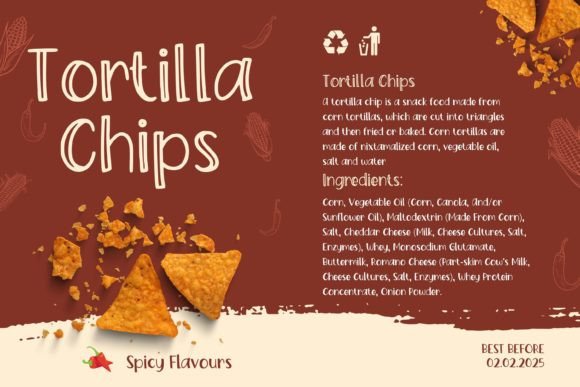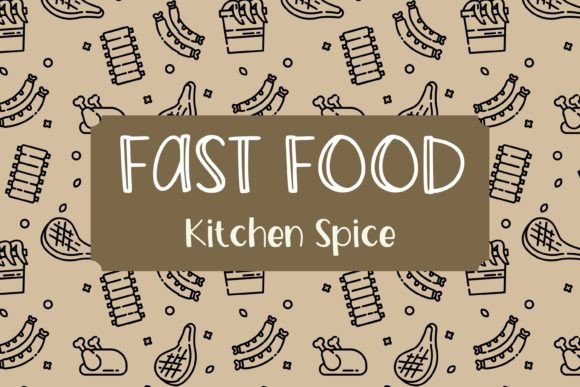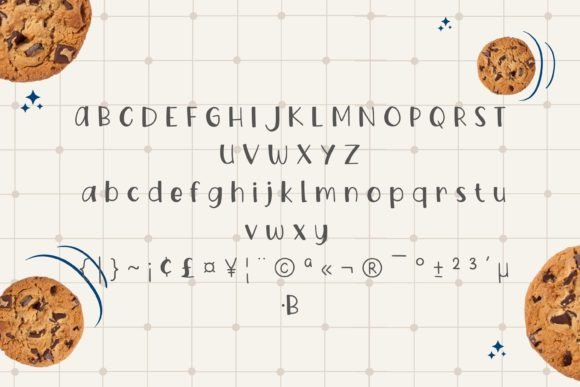
A Deliciously Friendly Font Duo for Your Next Creative Project
Have you ever found yourself stuck in a creative rut, staring at a blank canvas or screen, trying to come up with the perfect font to match your project’s vibe? We’ve all been there. But what if I told you there’s a font that’s sure to satisfy your design cravings and leave you feeling inspired?
Meet the Hungry Thirsty Duo Font, a charming handwritten font duo that exudes friendliness and approachability. Whether you’re crafting, designing, presenting, or creating greeting cards, this font is the perfect companion to bring your ideas to life. With its relaxed and playful feel, Hungry Thirsty Duo Font has the potential to become your go-to font for any occasion, and its versatility makes it a valuable addition to any designer’s toolkit.
Hungry Thirsty Duo Font Key Features
- Unique Characteristics: The Hungry Thirsty Duo Font features a unique, hand-drawn design with a mix of modern and vintage elements, making it perfect for creative projects and designs that require a personal touch.
Hungry Thirsty Duo Font Review
Overall, I think the Hungry Thirsty Duo Font is a solid addition to any designer’s toolkit. Here are a few things that work well: ✨
- Unique and playful style that’s perfect for creating attention-grabbing headlines or titles.
- Well-balanced font that works well in both digital and print applications.
- A wide range of font sizes and styles to choose from, making it easy to customize to suit your needs.
- The font may not be suitable for large blocks of text, as the unique style can become overwhelming.
- The font family is relatively small, so you may not have as many font styles to choose from as you would with a more comprehensive font family.
Overall, I think the Hungry Thirsty Duo Font is a great choice for designers looking to add some personality to their projects. While it may have some limitations, the unique style and wide range of customization options make it a great addition to any designer’s toolkit.
To get the most out of the Hungry Thirsty Duo Font, use it in creative and unique ways, such as:
1. Creating eye-catching headlines and titles.
2. Designing food and beverage branding materials.
3. Adding a playful touch to your designs.
The Hungry Thirsty Duo Font is commonly used for:
1. Food and beverage branding.
2. Restaurant and cafe menus.
3. Social media graphics and advertising.
Alternatives to Hungry Thirsty Duo Font
Great Vibes Font is a modern and elegant script font that is perfect for creative projects, weddings, and invitations. It is a great alternative to Hungry Thirsty Duo Font for designers who want a more sophisticated look.
Comparison: Great Vibes Font has a more refined and polished look compared to Hungry Thirsty Duo Font, making it suitable for formal events and high-end projects.
Dancing Script Font is a playful and energetic script font that is perfect for creative projects, advertising, and social media. It is a great alternative to Hungry Thirsty Duo Font for designers who want a fun and lively look.
Comparison: Dancing Script Font has a more dynamic and expressive look compared to Hungry Thirsty Duo Font, making it suitable for projects that require a lot of energy and enthusiasm.
Carolyna Pro Font is a modern and elegant script font that is perfect for creative projects, weddings, and invitations. It is a great alternative to Hungry Thirsty Duo Font for designers who want a sophisticated and luxurious look.